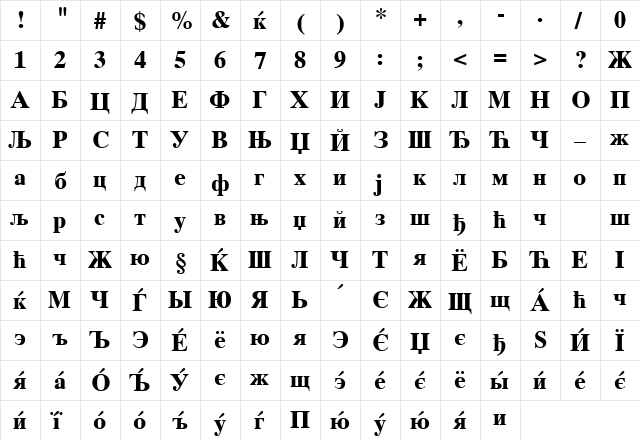
C_Times Bold
Design Context for C_Times Typeface
C_Times is a composed and adaptable typeface that performs quietly and consistently across a wide range of design contexts. The heavy weight commands attention and anchors typographic hierarchies.